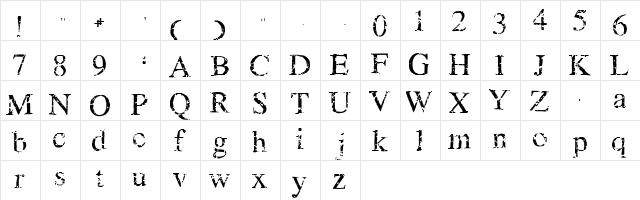
Crack Babies Normal
Design Context for Crack Babies Typeface
Crack Babies is a composed and adaptable typeface that performs quietly and consistently across a wide range of design contexts.
Pro Tip: Pair Crack Babies with a font of contrasting weight or personality to build a more expressive typographic hierarchy.